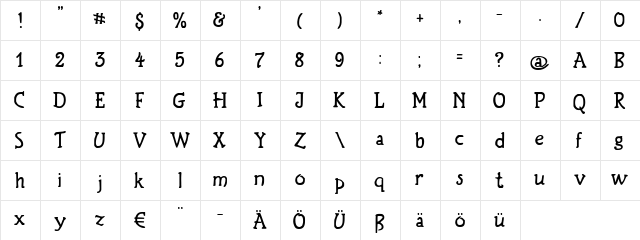
BirthdayGreetz Regular
Design Context for BirthdayGreetz Typeface
BirthdayGreetz offers clean, dependable letterforms without strong stylistic allegiance, making it a practical choice for designers who need flexibility.